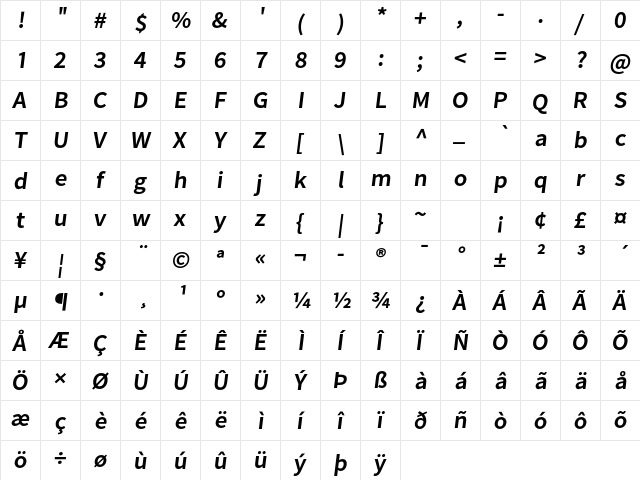
Falling Sky MedObl
| Designer | Paul D. Hunt |
Design Context for Falling Sky Typeface
Falling Sky takes a measured approach to typography — its balanced proportions and neutral character make it a reliable workhorse for both digital and print work.
Pro Tip: Use Falling Sky in both headline and body roles to test its range before committing to a single application.